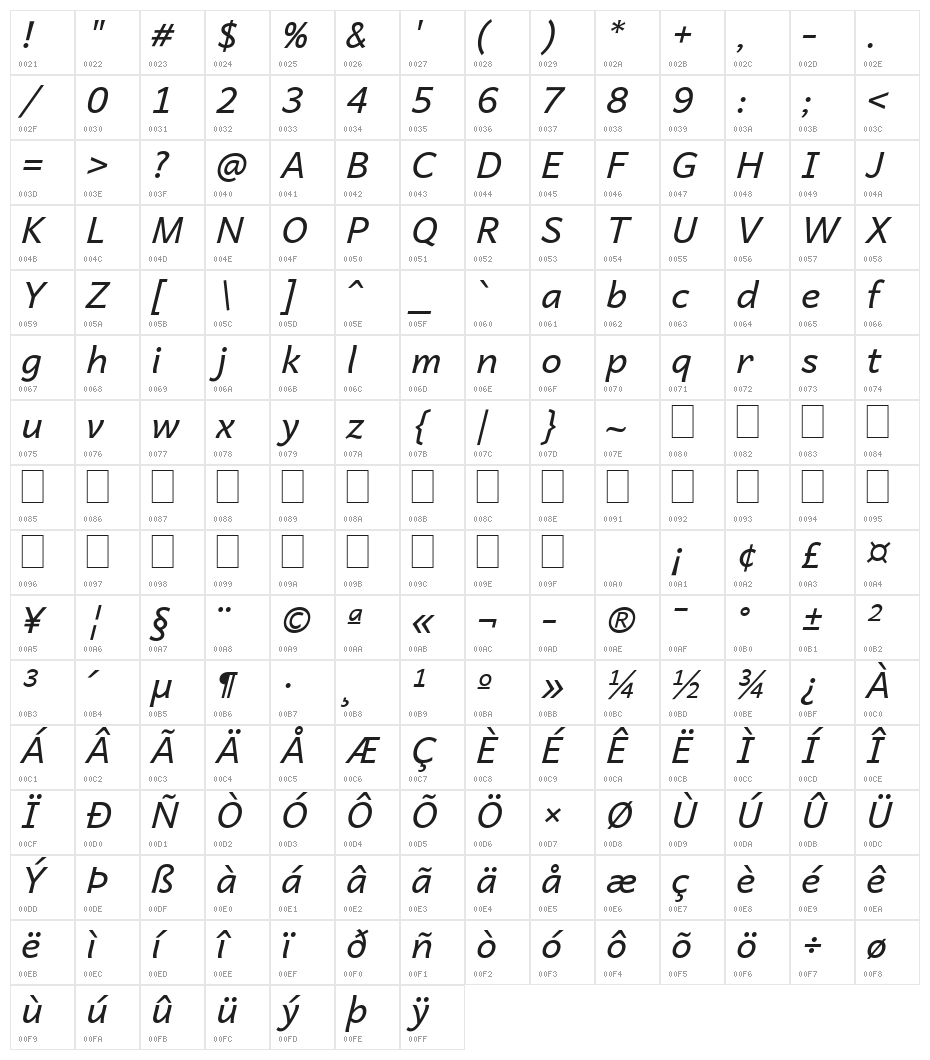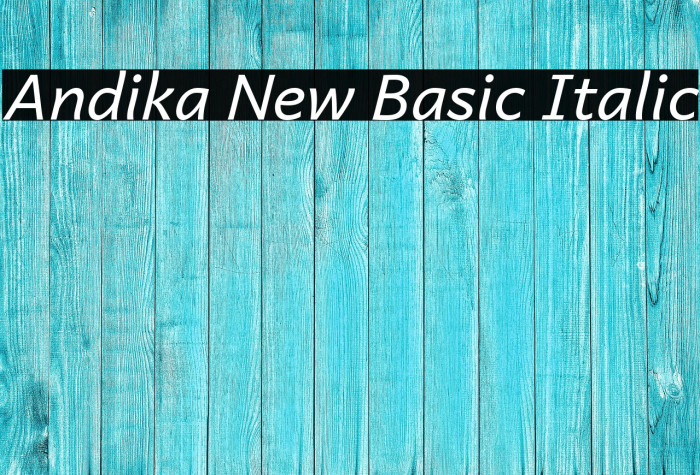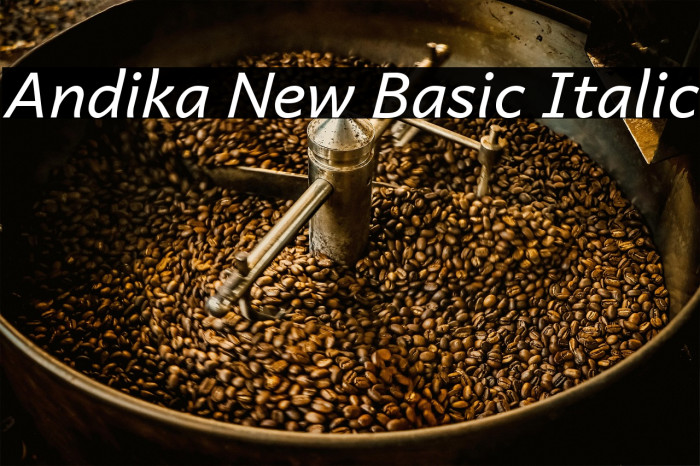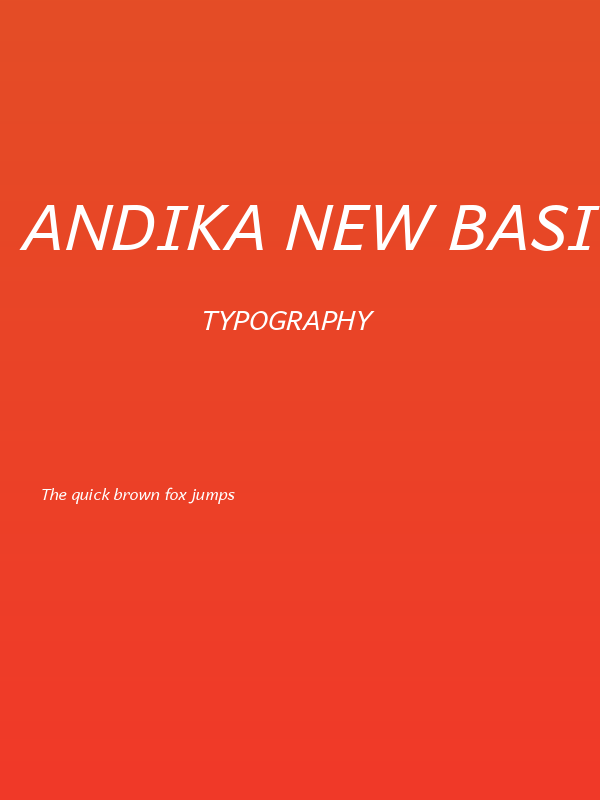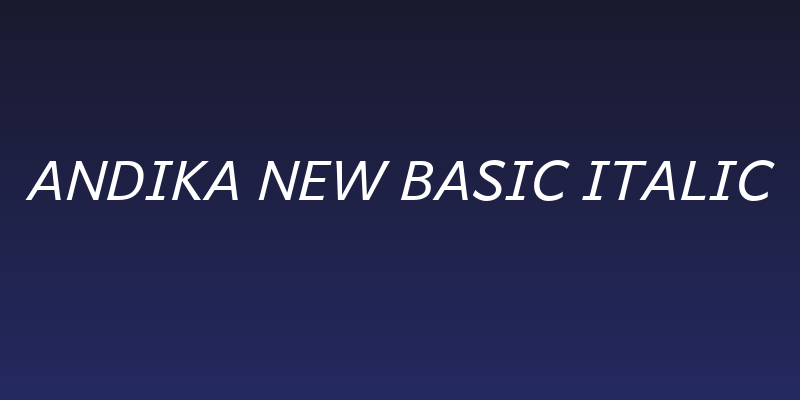
Andika New Basic Italic Font
Andika New Basic Italic Description
This font presents a clean and modern sans-serif style with a slight italic slant, giving it a dynamic and forward-moving appearance. The characters are well-proportioned with a consistent stroke width, providing a harmonious and balanced look. The uppercase letters are bold and assertive, while the lowercase letters maintain a friendly and approachable feel. The numerals are clear and easy to read, making them suitable for various applications. Special characters are designed with the same attention to detail, ensuring they integrate seamlessly with the rest of the typeface.
| Use Case | Body text, User interfaces, Educational content |
| Proposed Projects | Ideal for use in digital interfaces, educational materials, and professional presentations. |